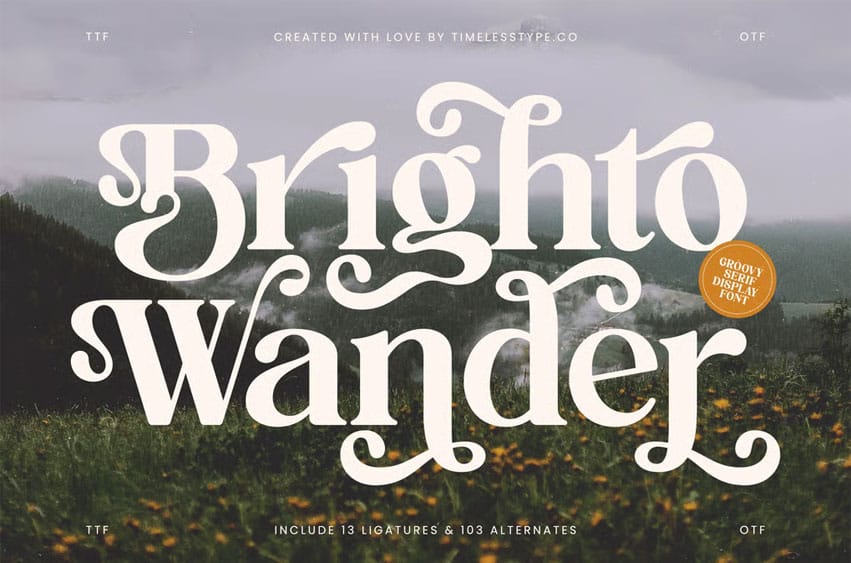
Brighto Wander Font is a groovy serif display font that blends whimsical curves with bold vintage charm. With 13 ligatures and 103 alternates, this typeface offers endless stylistic possibilities, featuring expressive swashes, decorative endings, and fluid retro shapes perfect for logos, posters, packaging, editorial layouts, and creative branding.
Inspired by natural wanderlust and 70s artistic typography, Brighto Wander evokes warm nostalgia and handcrafted elegance. Its playful yet refined letterforms bring personality and movement to any design, making it ideal for projects that aim to feel organic, adventurous, and visually captivating. FEATURE: